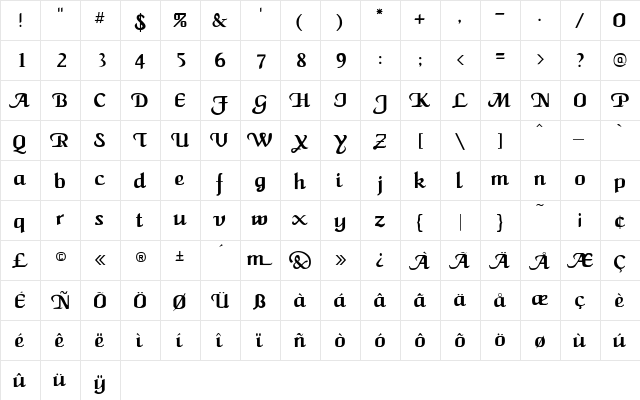
Carrilla Regular
Design Context for Carrilla Typeface
Carrilla offers clean, dependable letterforms without strong stylistic allegiance, making it a practical choice for designers who need flexibility.
Pro Tip: Pair Carrilla with a font of contrasting weight or personality to build a more expressive typographic hierarchy.